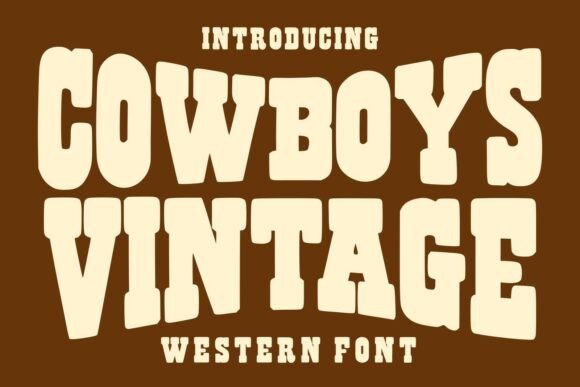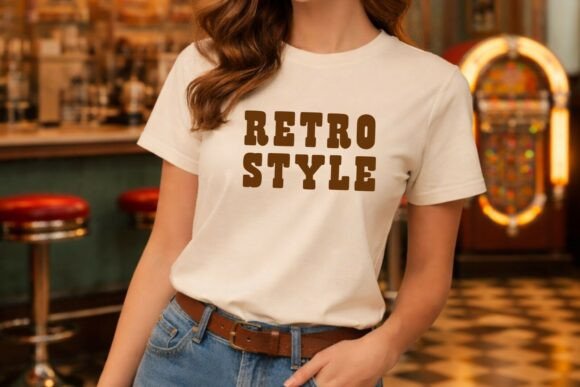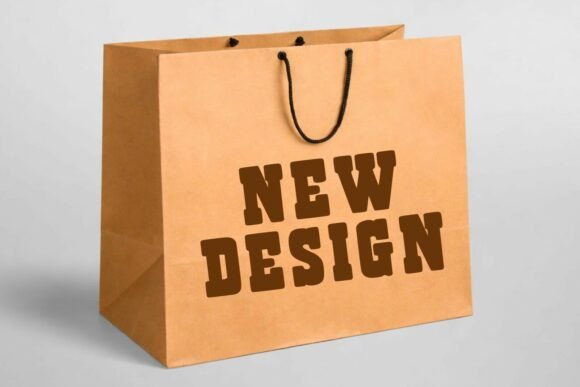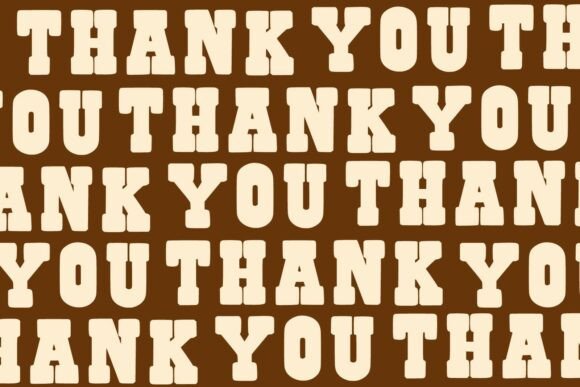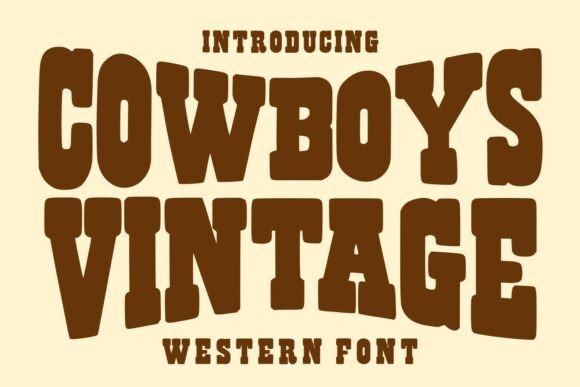
Cowboys Vintage Western Display Font: A Bold and Rugged Typeface for Your Wild West-Inspired Designs
Are you looking for a font that captures the essence of the Wild West and adds a touch of rugged charm to your designs? Look no further than the Cowboys Vintage Western Display Font. This bold and rugged typeface is inspired by classic Wild West typography, making it perfect for designers and crafters who want to add a touch of authenticity to their projects.
A Font that Embodies the Spirit of the Wild West
The Cowboys Vintage Western Display Font is a bold and rugged typeface that embodies the spirit of the Wild West. With its strong slab shapes and distinctive western character, this font brings an authentic cowboy and frontier feel to your designs. Whether you’re creating posters, logos, branding materials, packaging, signage, t-shirt designs, or retro-themed projects, this font is sure to add a touch of rugged charm and authenticity.
Key Features of the Cowboys Vintage Western Display Font
So, what makes the Cowboys Vintage Western Display Font so special? Here are some of its key features:
- Bold and rugged design: The Cowboys Vintage Western Display Font features strong slab shapes and a distinctive western character that gives it a bold and rugged look.
- Authentic Wild West feel: This font is inspired by classic Wild West typography, making it perfect for designers and crafters who want to add a touch of authenticity to their projects.
- Versatile: The Cowboys Vintage Western Display Font is perfect for a wide range of design projects, including posters, logos, branding materials, packaging, signage, t-shirt designs, and retro-themed projects.
Uses for the Cowboys Vintage Western Display Font
The Cowboys Vintage Western Display Font is a versatile typeface that can be used for a wide range of design projects. Here are some ideas to get you started:
- Posters: Create eye-catching posters for movies, events, or promotions with a Wild West theme.
- Logos and branding: Add a touch of rugged charm to your logos and branding materials with this bold and rugged font.
- Packaging: Use the Cowboys Vintage Western Display Font to create unique and eye-catching packaging for your products.
- Signage: Create authentic-looking signage for your business or event with this font.
- T-shirt designs: Add a touch of Wild West charm to your t-shirt designs with this bold and rugged font.
- Retro-themed projects: Use the Cowboys Vintage Western Display Font to create retro-themed projects, such as vintage-style advertisements or nostalgic posters.
Why Choose the Cowboys Vintage Western Display Font?
So, why choose the Cowboys Vintage Western Display Font for your design projects? Here are just a few reasons:
- Unique and authentic look: This font features a unique and authentic look that is sure to set your designs apart from the rest.
- High-quality design: The Cowboys Vintage Western Display Font is designed to high standards, ensuring that it looks great in any design project.
In conclusion, the Cowboys Vintage Western Display Font is a bold and rugged typeface that is perfect for designers and crafters who want to add a touch of Wild West charm to their designs. With its strong slab shapes and distinctive western character, this font brings an authentic cowboy and frontier feel to your projects. Whether you’re creating posters, logos, branding materials, packaging, signage, t-shirt designs, or retro-themed projects, this font is sure to add a touch of rugged charm and authenticity.